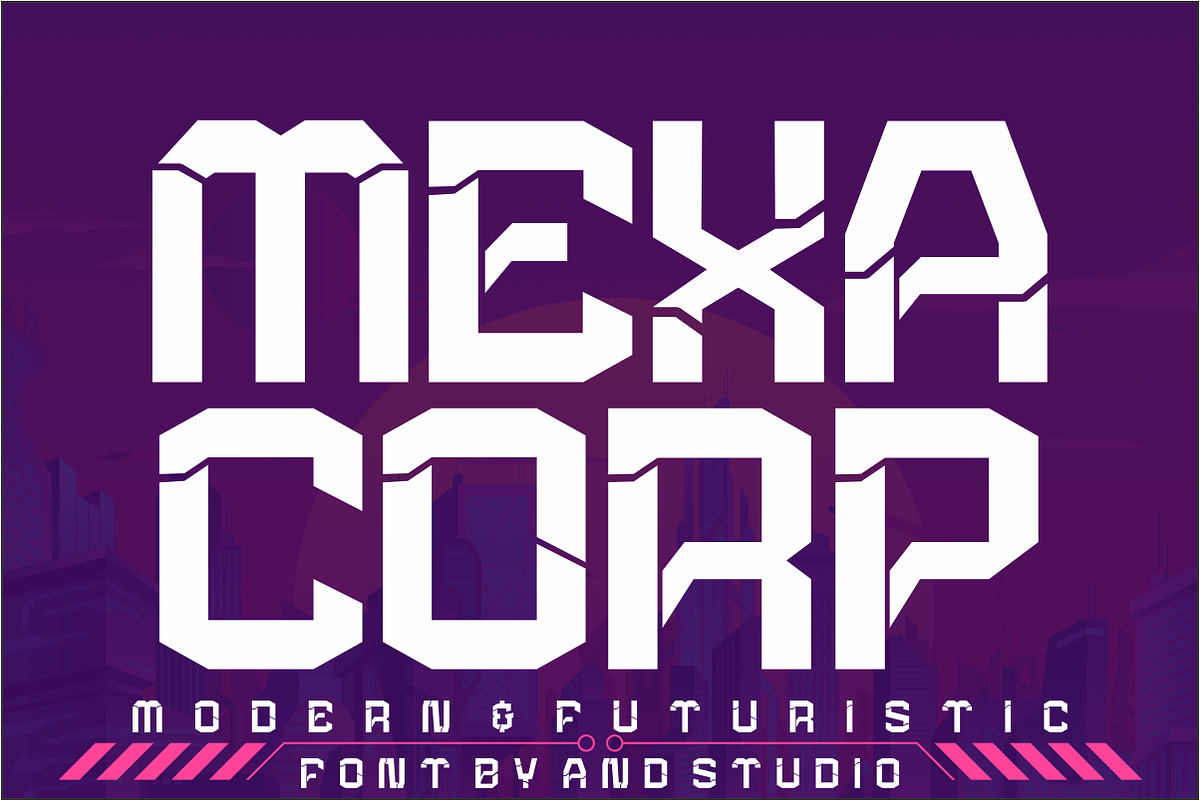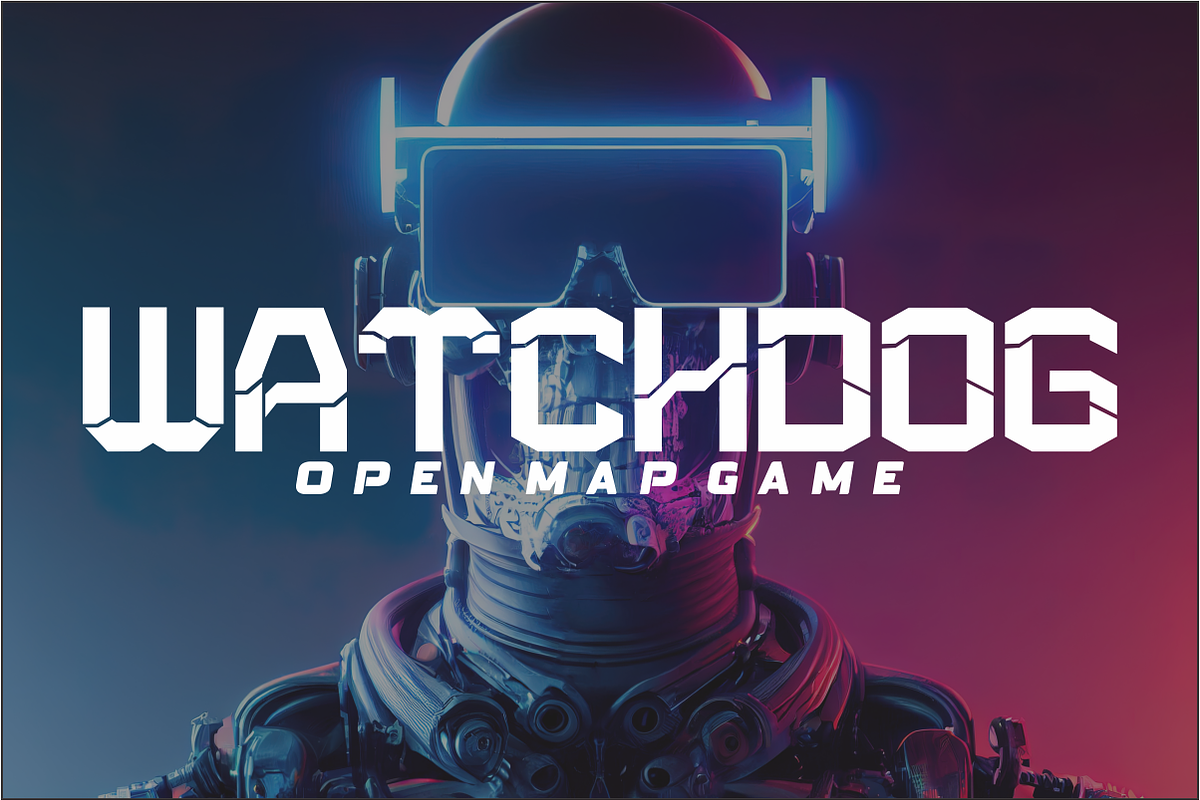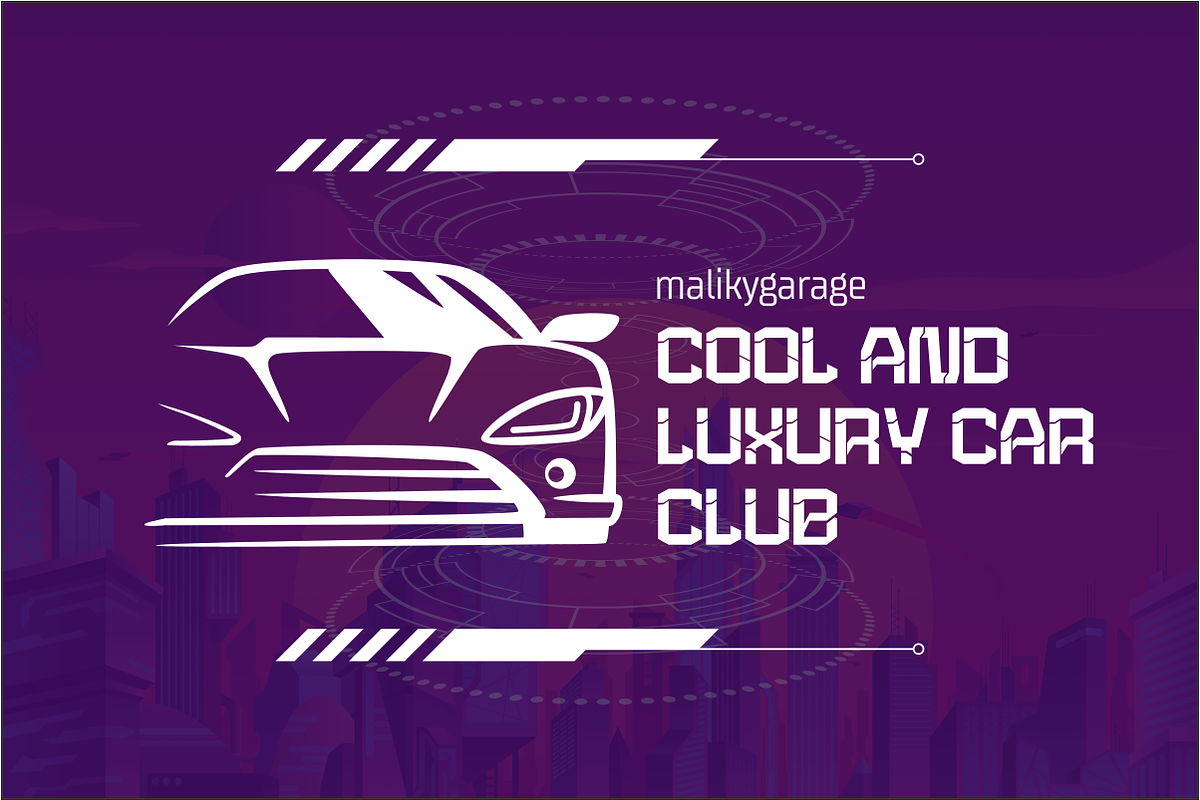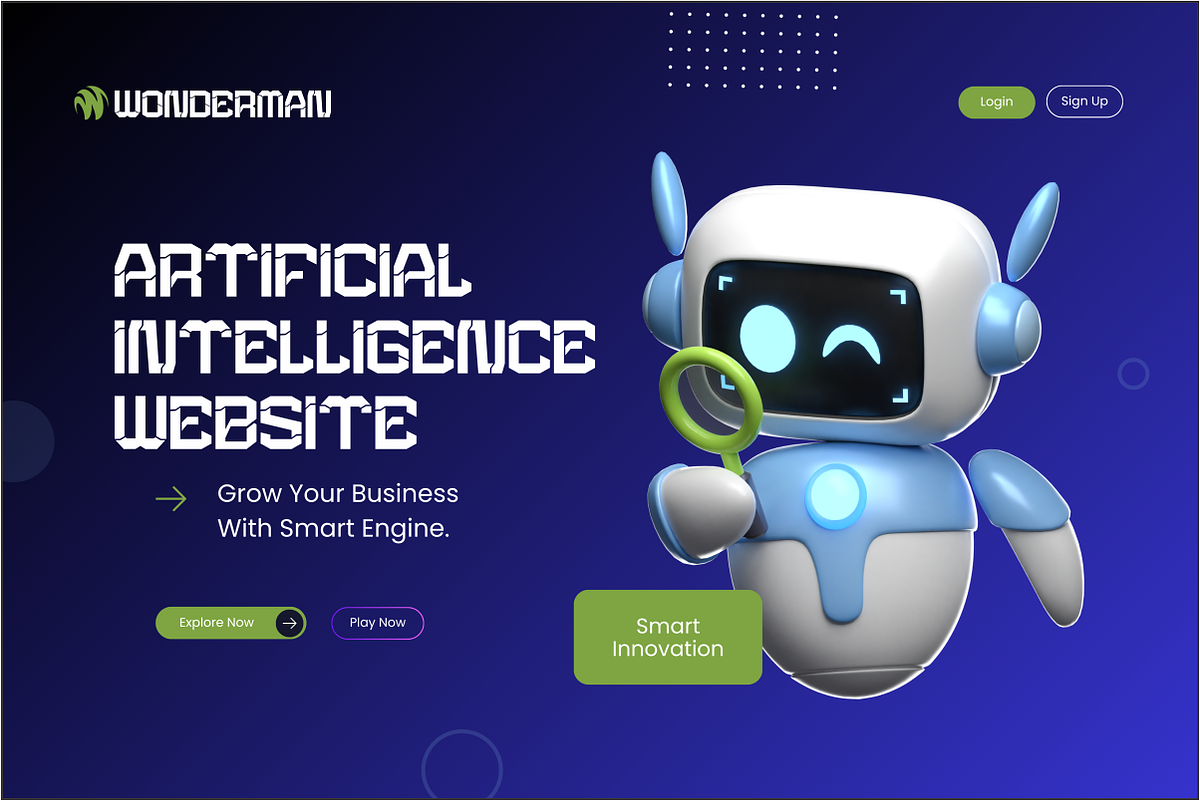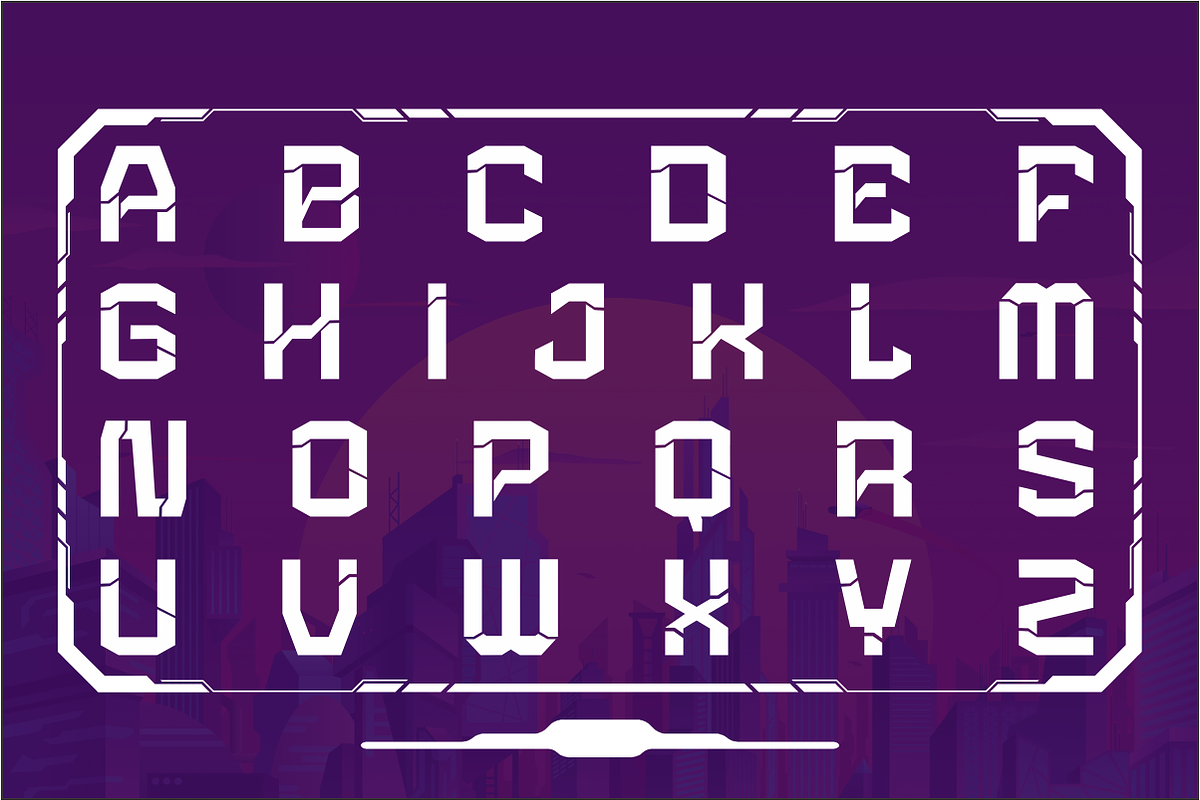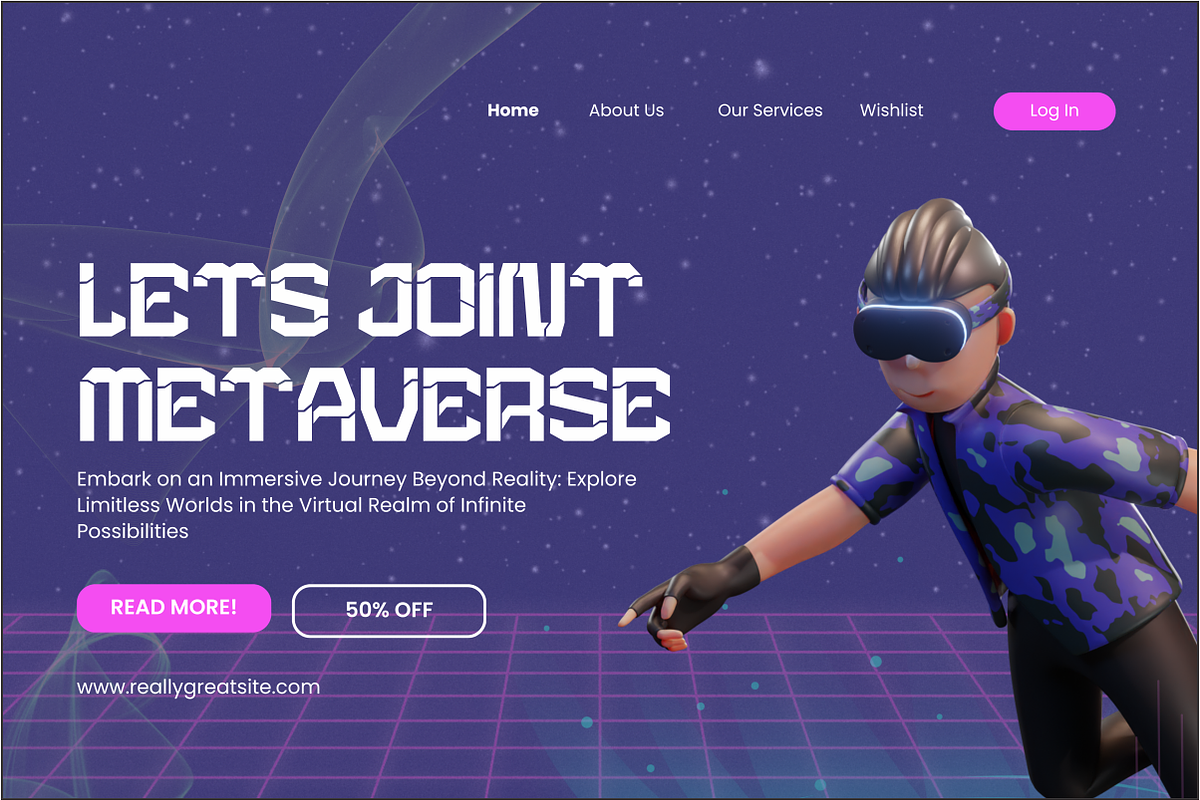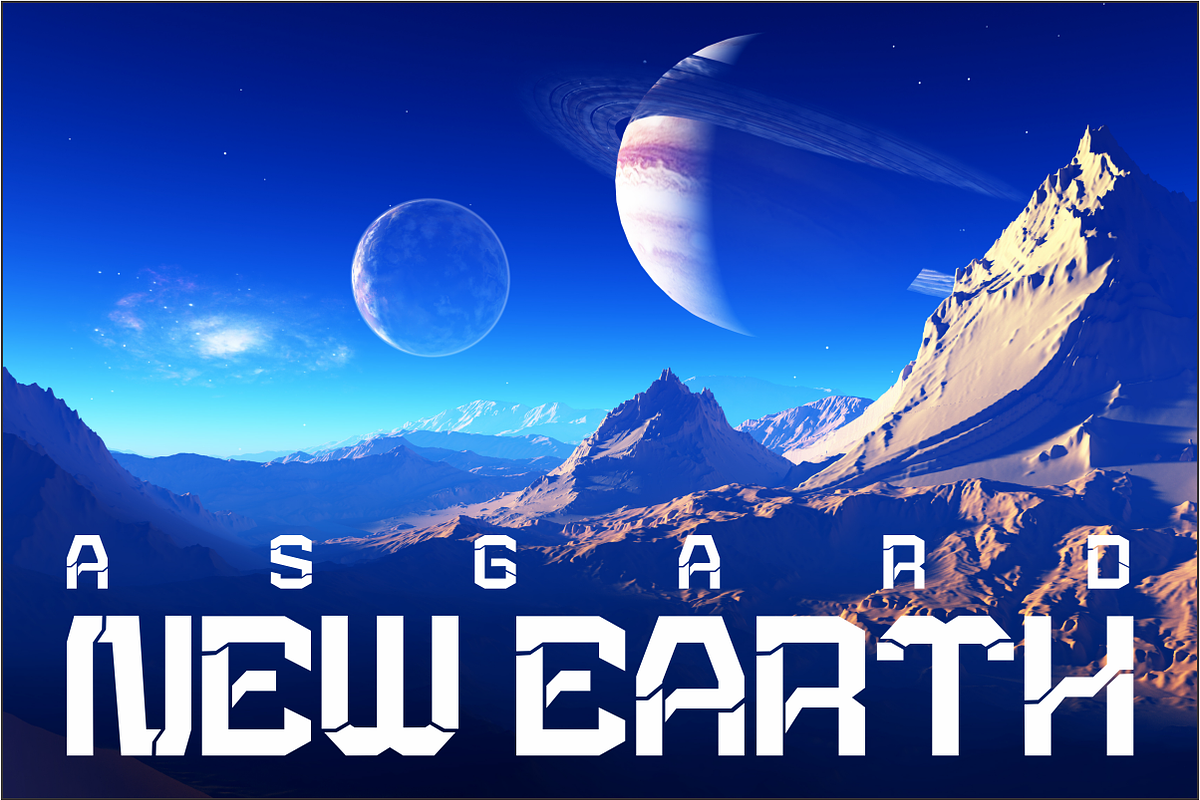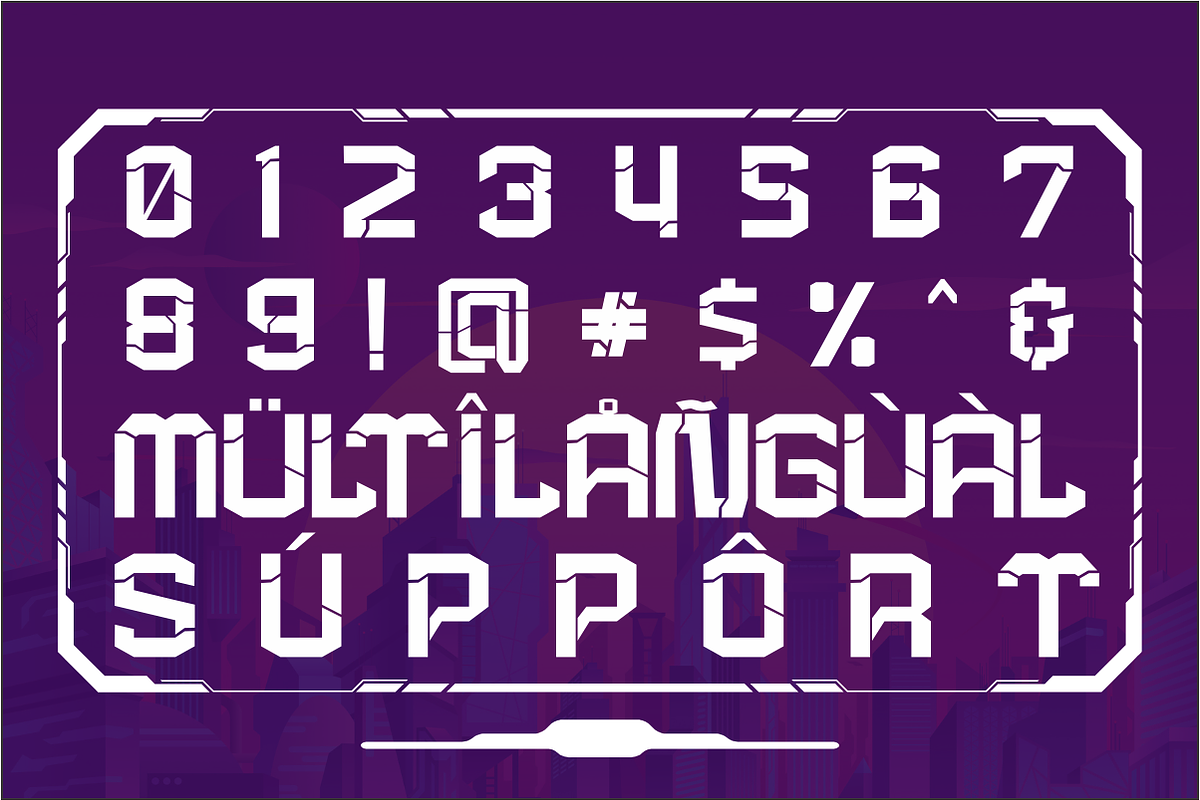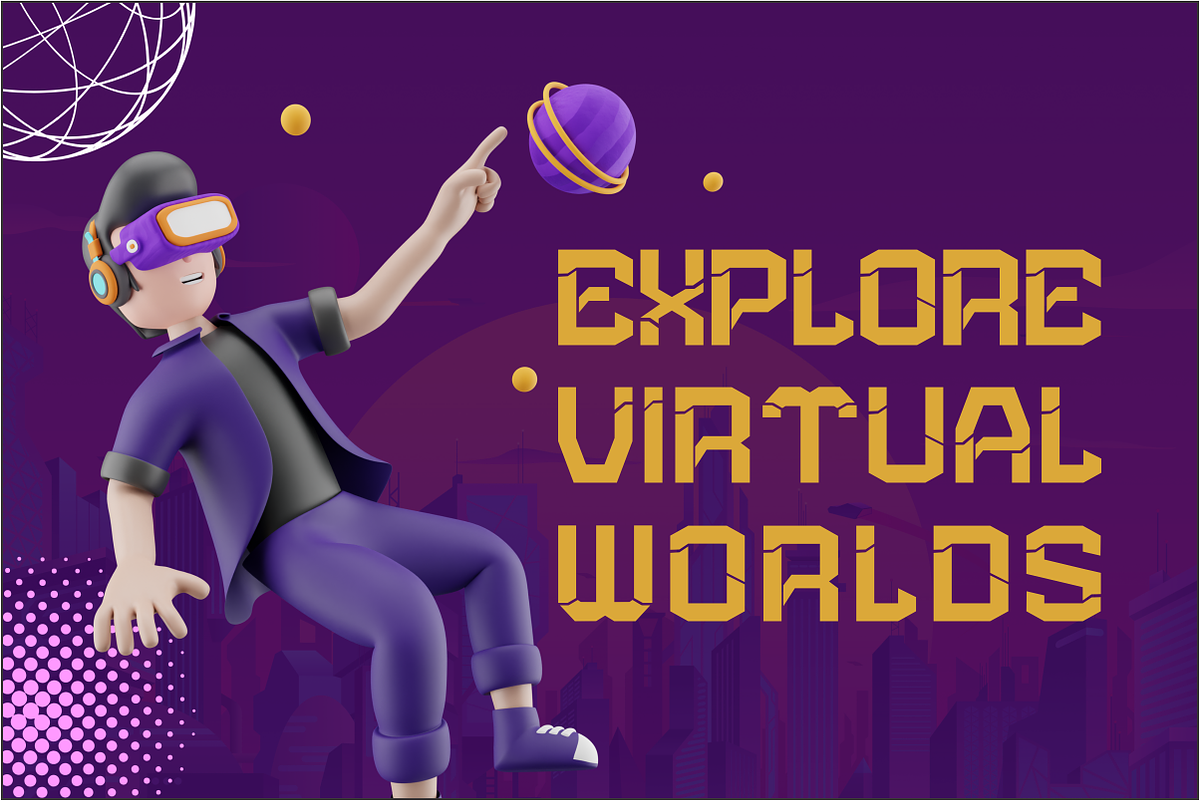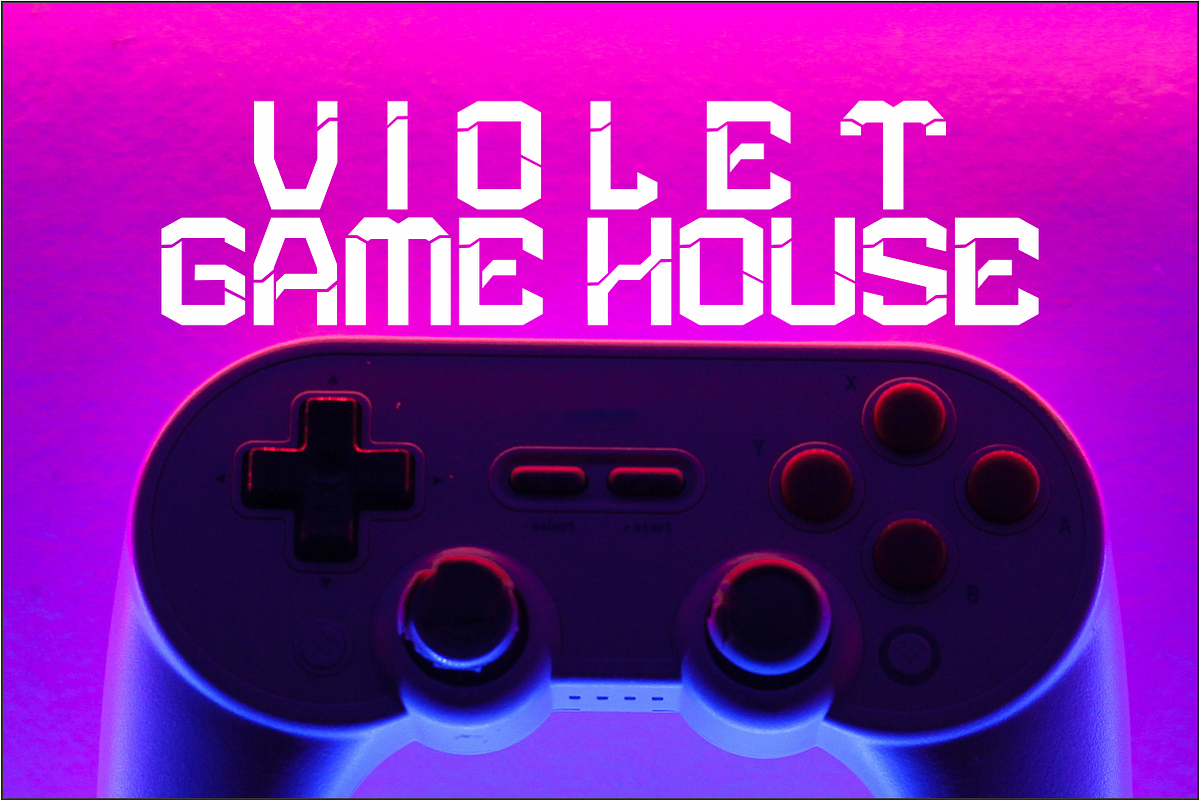
MEXACORP
“MEXACORP” is a font that combines modern aesthetics with a touch of future technology. Designed with precision and meticulousness, this font showcases clean, bold, and futuristic characters, creating a look suitable for various design projects focused on modern and technological themes.
Each letter in “MEXACORP” is crafted with clarity and sharpness to ensure maximum readability while also adding an intriguing touch. Clean lines and sharp angles create an impression of sophisticated and innovative technology, making this font perfect for projects related to the technology industry, software, or digital communication.
Available in various styles and weights, “MEXACORP” can be customized to fit your design needs, whether for striking headlines, small-sized texts, or responsive screen display designs. This font offers the perfect balance between modern sophistication and futuristic appeal.
With “MEXACORP,” you can create engaging design experiences, portraying a bright and innovative vision of the future in every piece of your work.